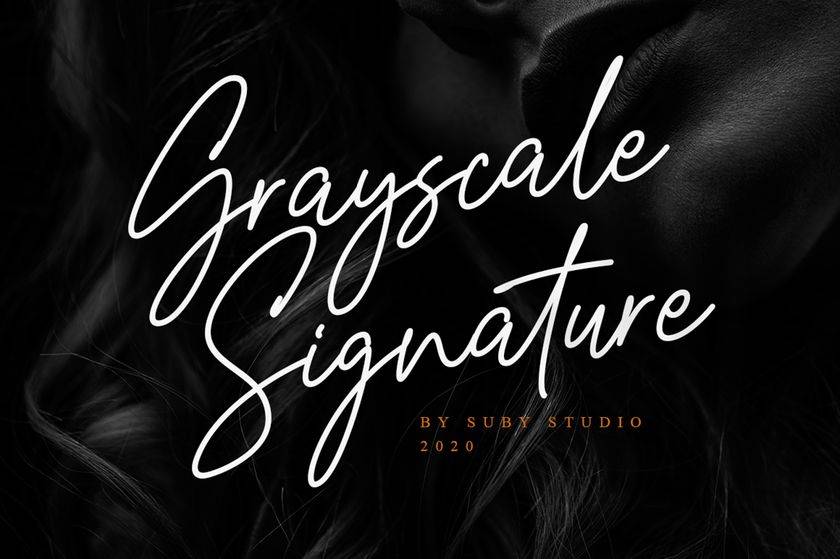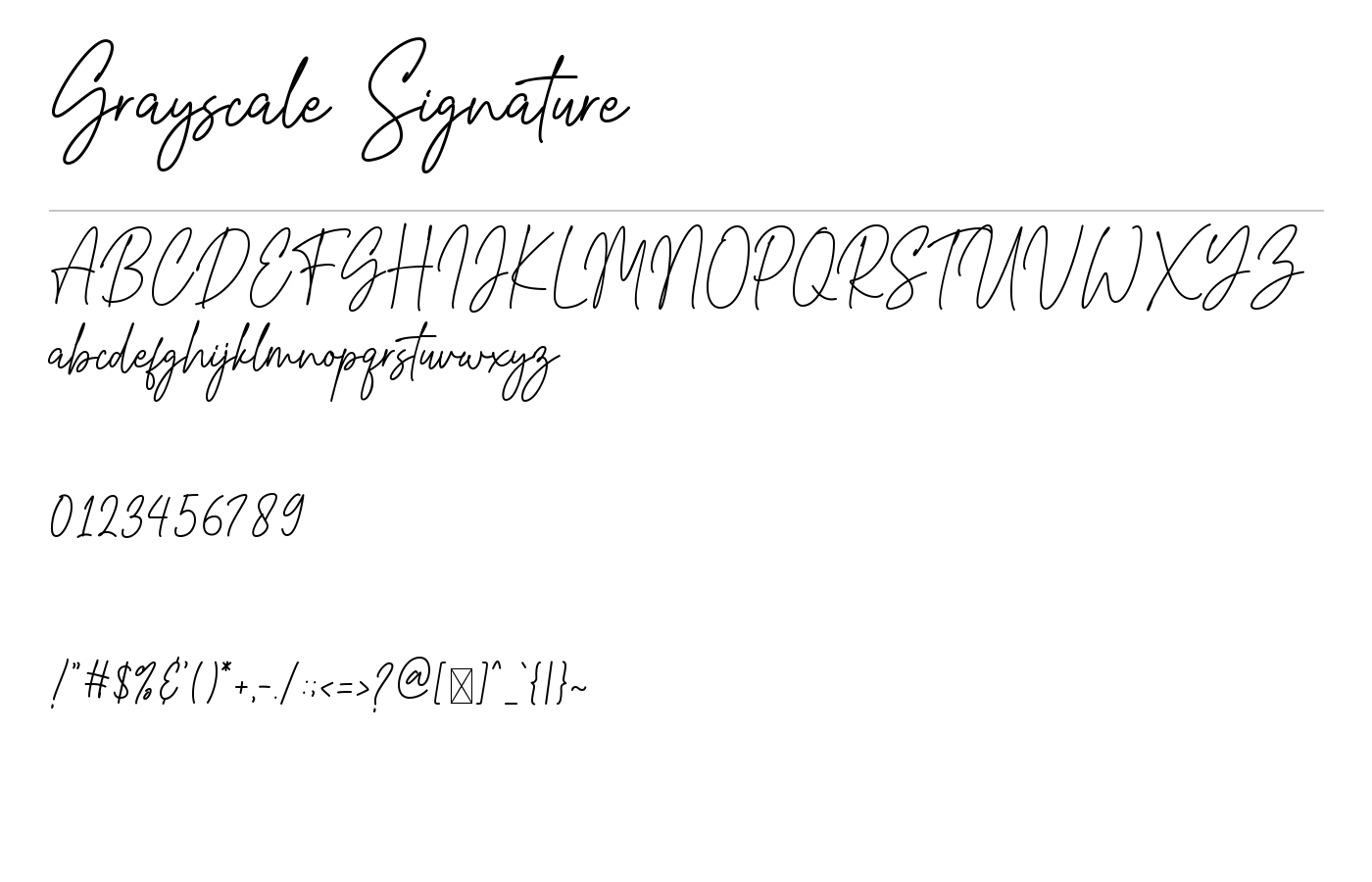
Grayscale Signature is an elegant, handwritten script font that mimics the natural flow of a personal signature with its slender, graceful strokes and moderate contrast. Its tall, airy letterforms and delicate curves give it a modern yet sophisticated feel, making it an ideal choice for branding, invitations, logos, and stylish editorial projects that require a touch of personality and elegance. This font works wonderfully where a refined, handwritten look is desired to convey authenticity and charm.
Grayscale Signature Font
About Grayscale Signature Font
| Font family | Grayscale Signature Font |
| Designer | Teguh Subiyantoro |